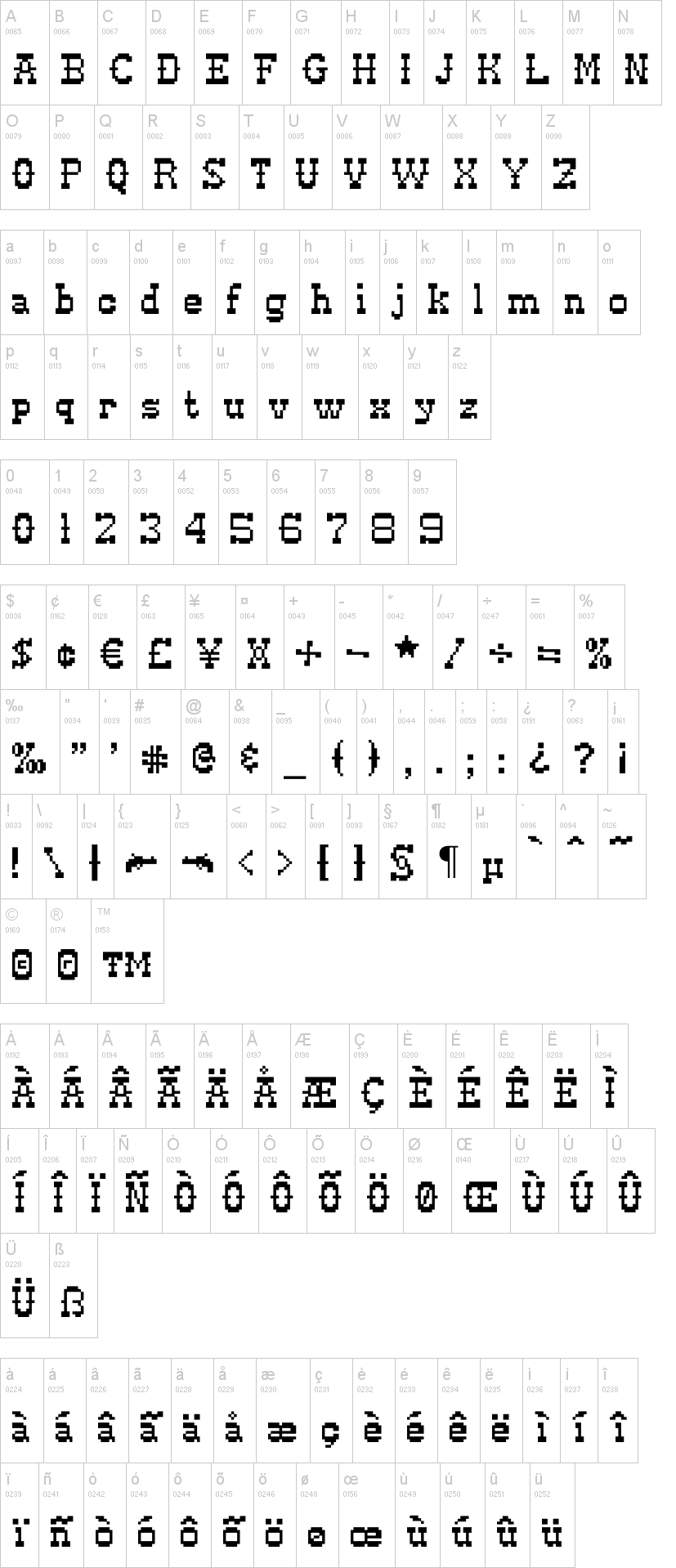
Note of the authorPixel Cowboy is based the text of a number of western games in the early DOS/VGA era, such as one of the remakes of the legendary Oregon Trail franchise. Includes full alphabet, extended punctuation, euro.